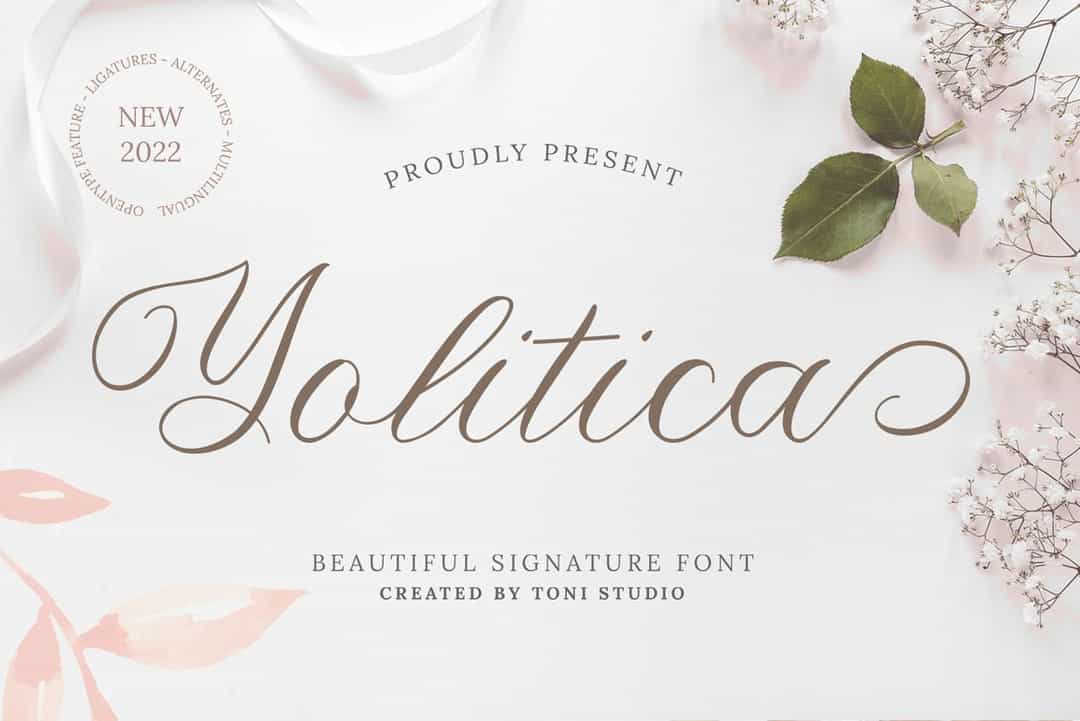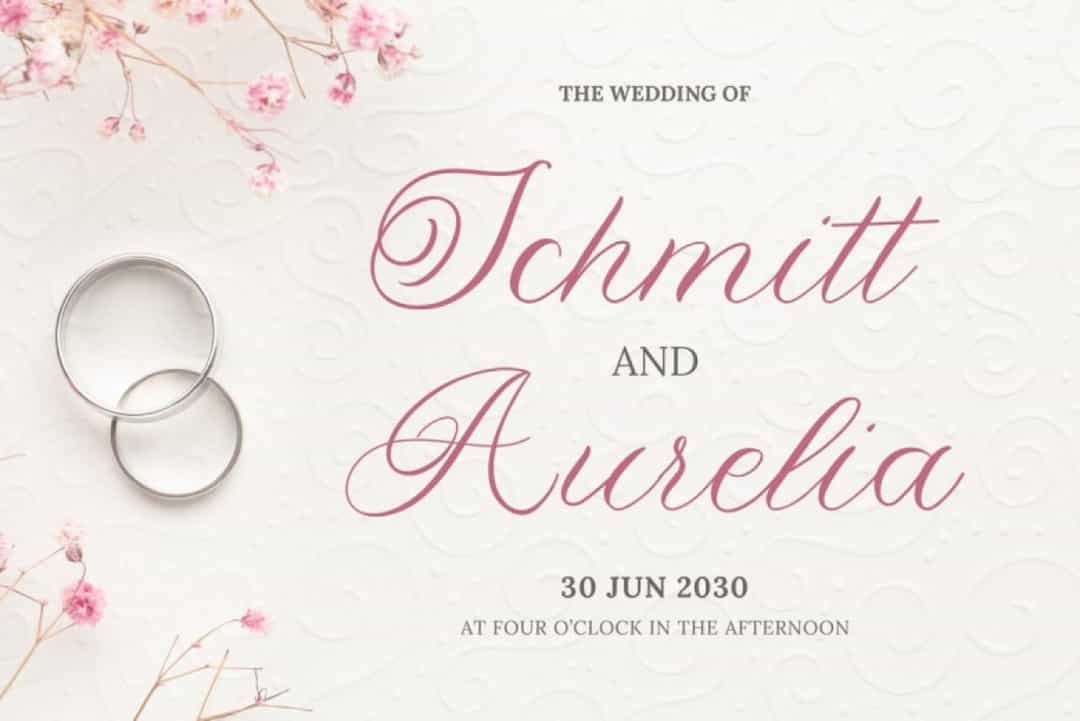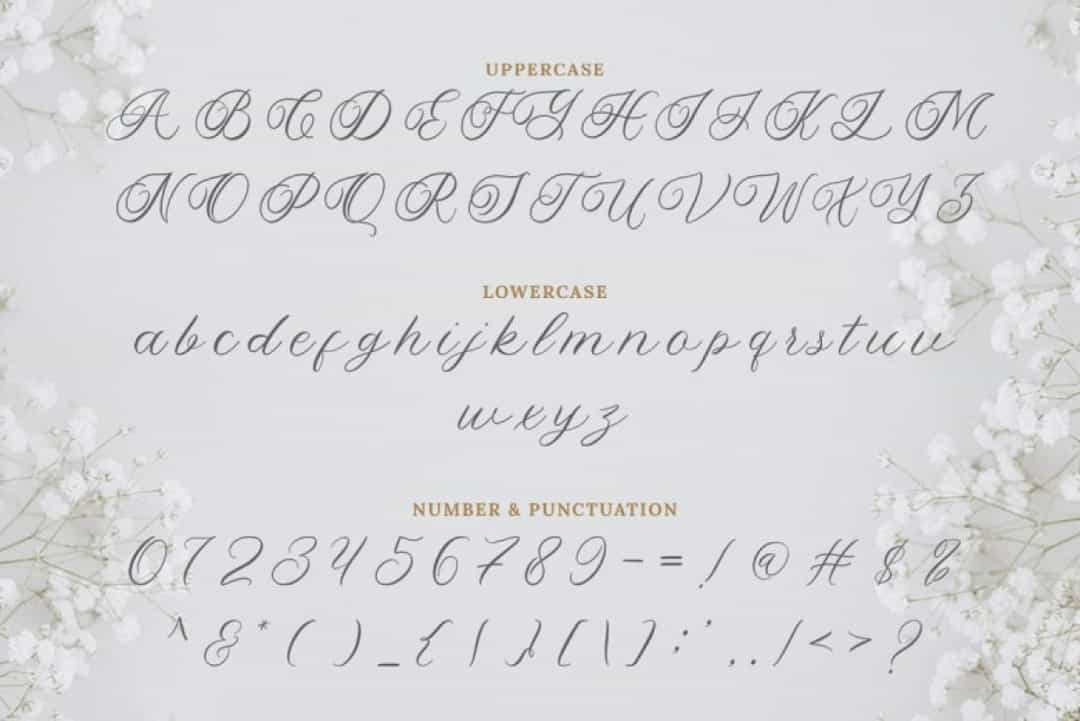
Introducing the new font Yolitica, a modern handwritten script font with slight indentations that make the font look very beautiful. With a sophisticated flow, the Yolitica font is perfect for wedding scripts, elegant logos and branding, websites, calligraphy quotes, and more!